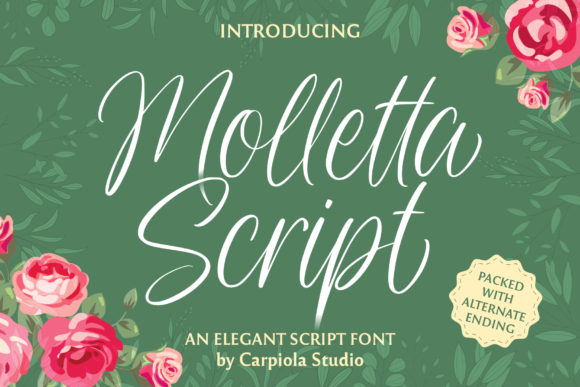
Introducing Molleta Script Font, an enchanting handwritten font that will transform your designs into captivating works of art. With its timeless elegance and effortless charm, Molleta Script is the ideal choice for designers seeking to create captivating logos, memorable branding, personalized clothing designs, and inspirational quotes.
Immerse yourself in the beauty of each carefully crafted letter, adding a touch of sophistication and uniqueness to your creations. Whether you're a seasoned designer or just starting out, Molleta Script will effortlessly elevate your designs, bringing them to life with a touch of class and elegance.
Explore the endless creative possibilities with Molleta Script's PUA encoding, granting you effortless access to a world of glyphs and swashes. Unleash your imagination and let your designs blossom with the limitless potential of Molleta Script.
Don't settle for ordinary fonts; choose Molleta Script and embark on a journey of creative expression. Its timeless charm will captivate your audience, leaving a lasting impression that speaks volumes about your dedication to excellence.
Molleta Script is more than just a font; it's an investment in your creative journey. Its versatility and timeless appeal will accompany you through countless projects, becoming an indispensable tool in your design arsenal.
Embrace the magic of Molleta Script and watch your designs transform into captivating masterpieces. Its elegance will leave your audience spellbound, eager to discover the stories behind your creations.